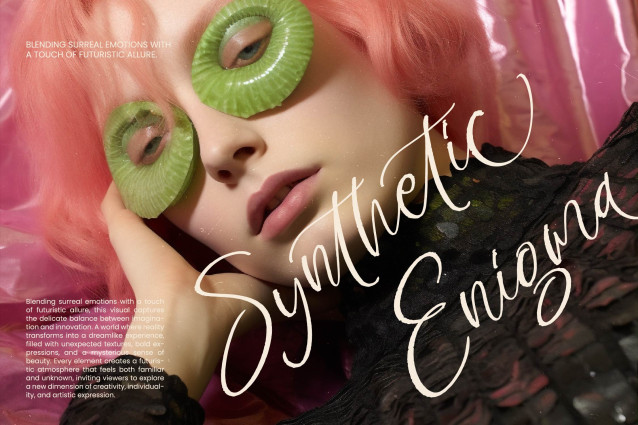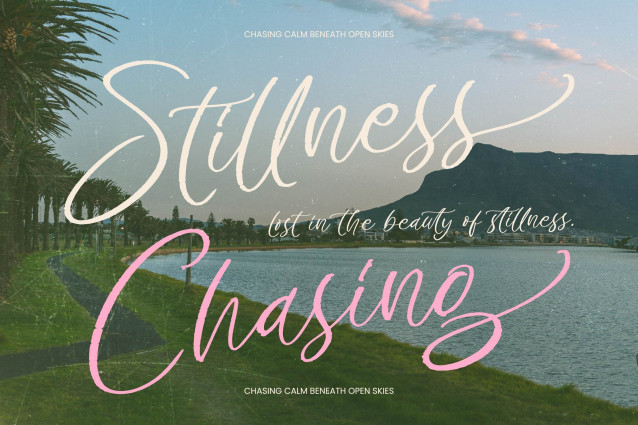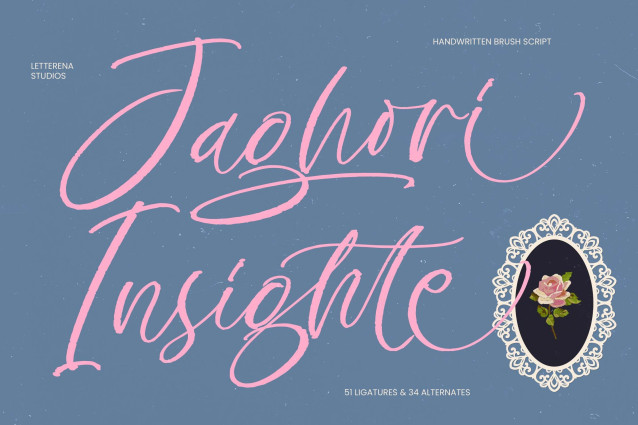
Jaghori Insighte – Handwritten Brush Script
Elevate your creative vision with a touch of authentic artistry and refined movement. Jaghori Insighte – Handwritten Brush Script stands out as a masterpiece of expressive typography, blending the raw texture of natural brush strokes with a sophisticated, flowing silhouette. This font captures an organic aesthetic that feels both personal and high-end, making it a powerful tool for designers seeking to inject hand-crafted elegance into their digital work.
Expand your brand’s reach across borders effortlessly with a typeface built for the modern global economy. With its extensive multilingual support, Jaghori Insighte – Handwritten Brush Script adapts seamlessly across global markets, making it incredibly versatile for international projects. Combined with over 50 unique ligatures and 30 alternates, this script offers unparalleled customization, ensuring your message remains distinct and legible in any language or region.